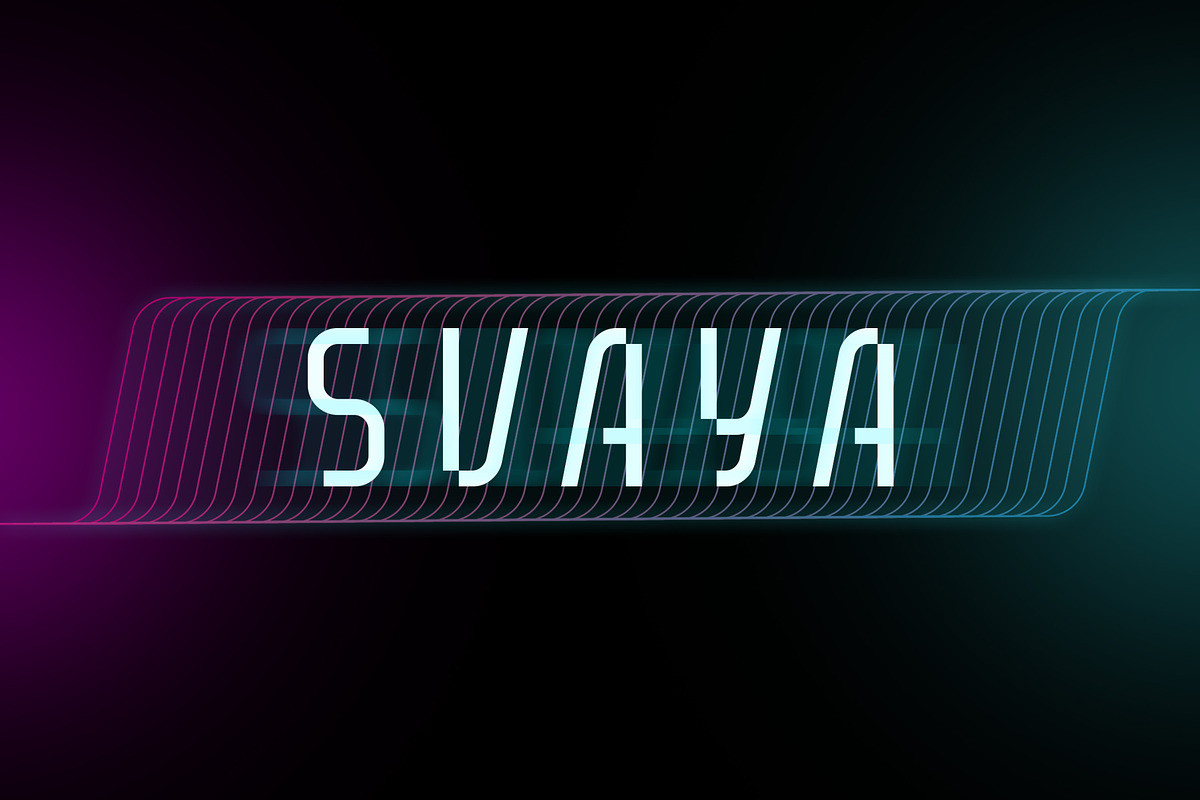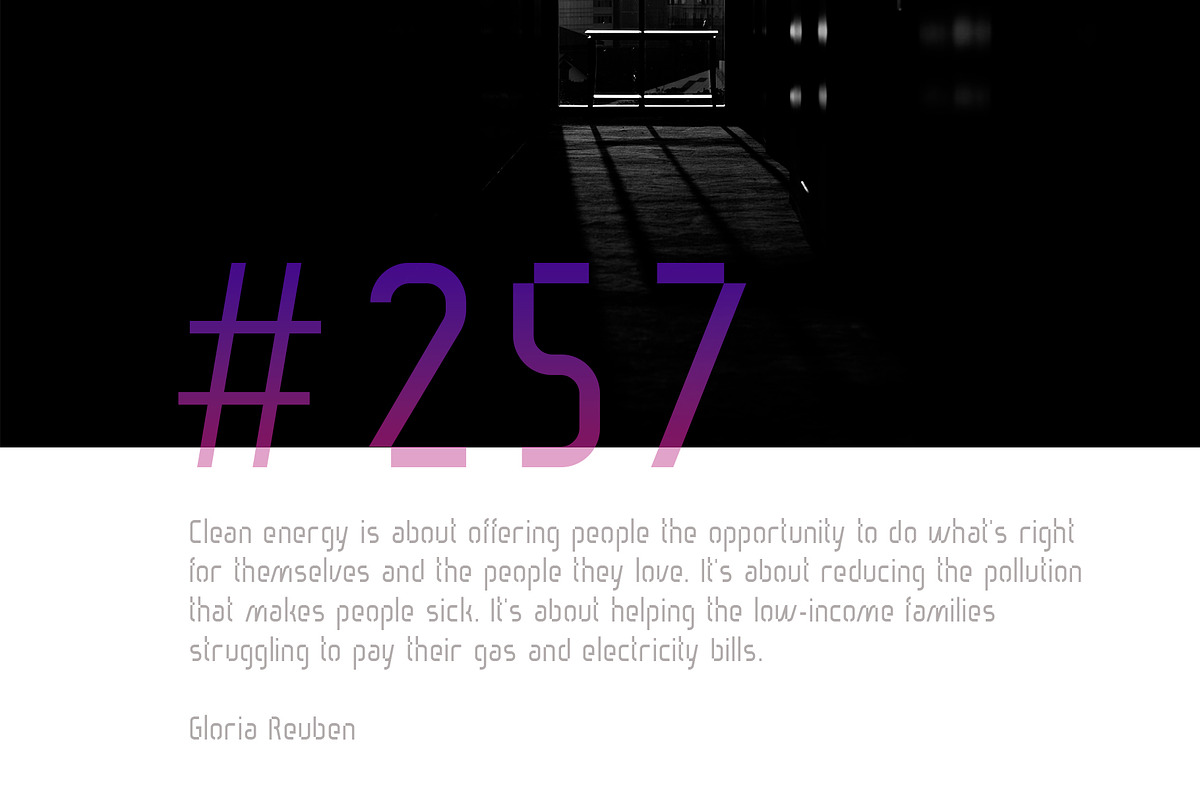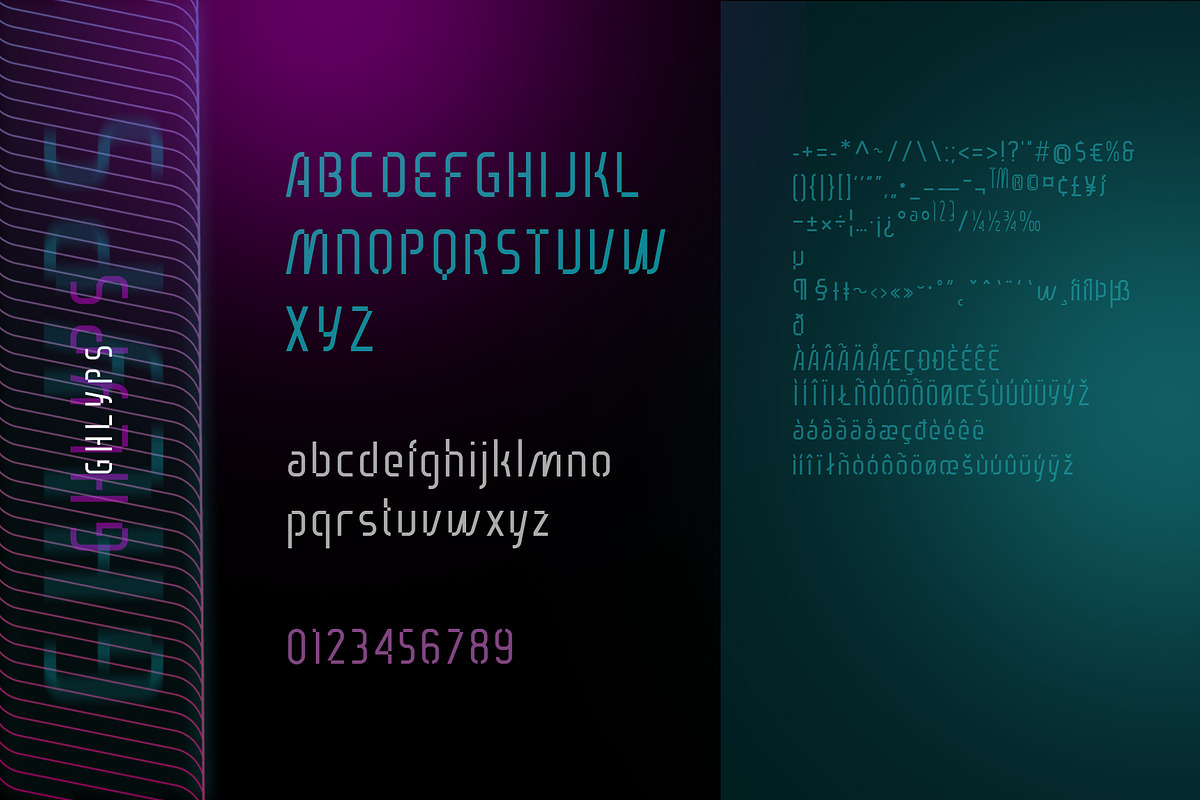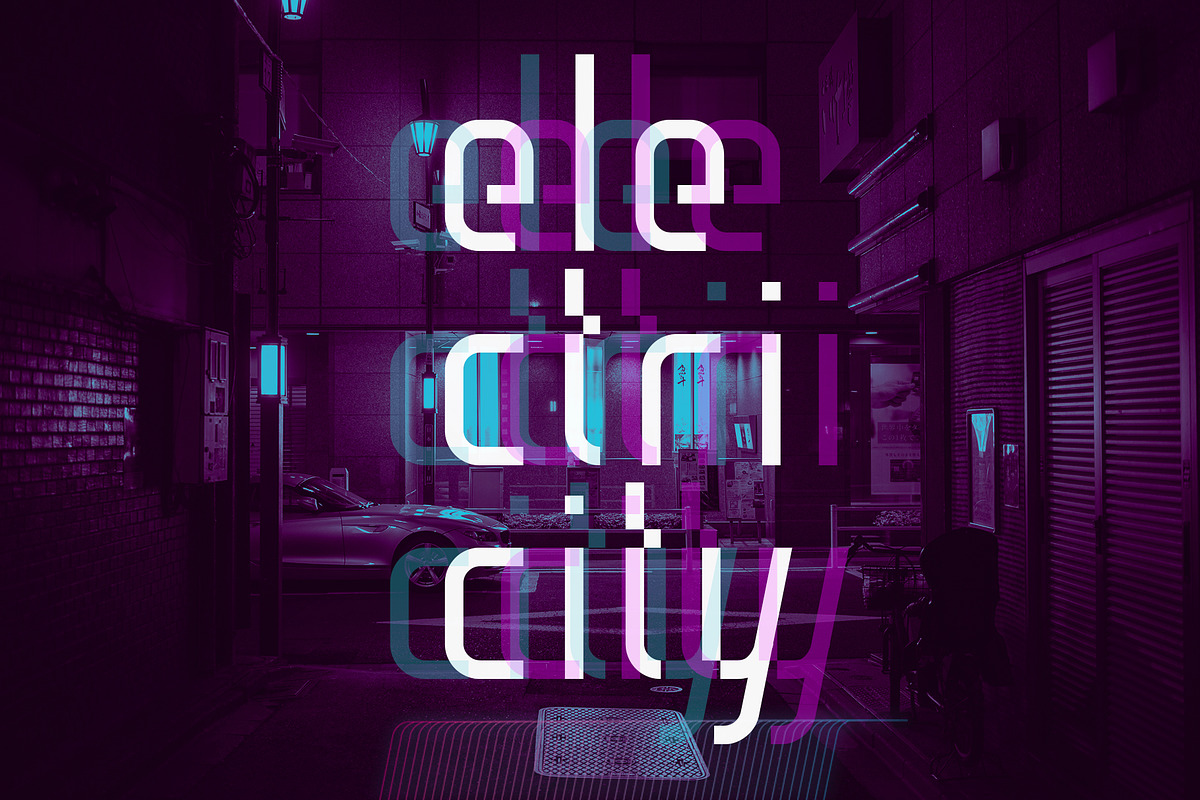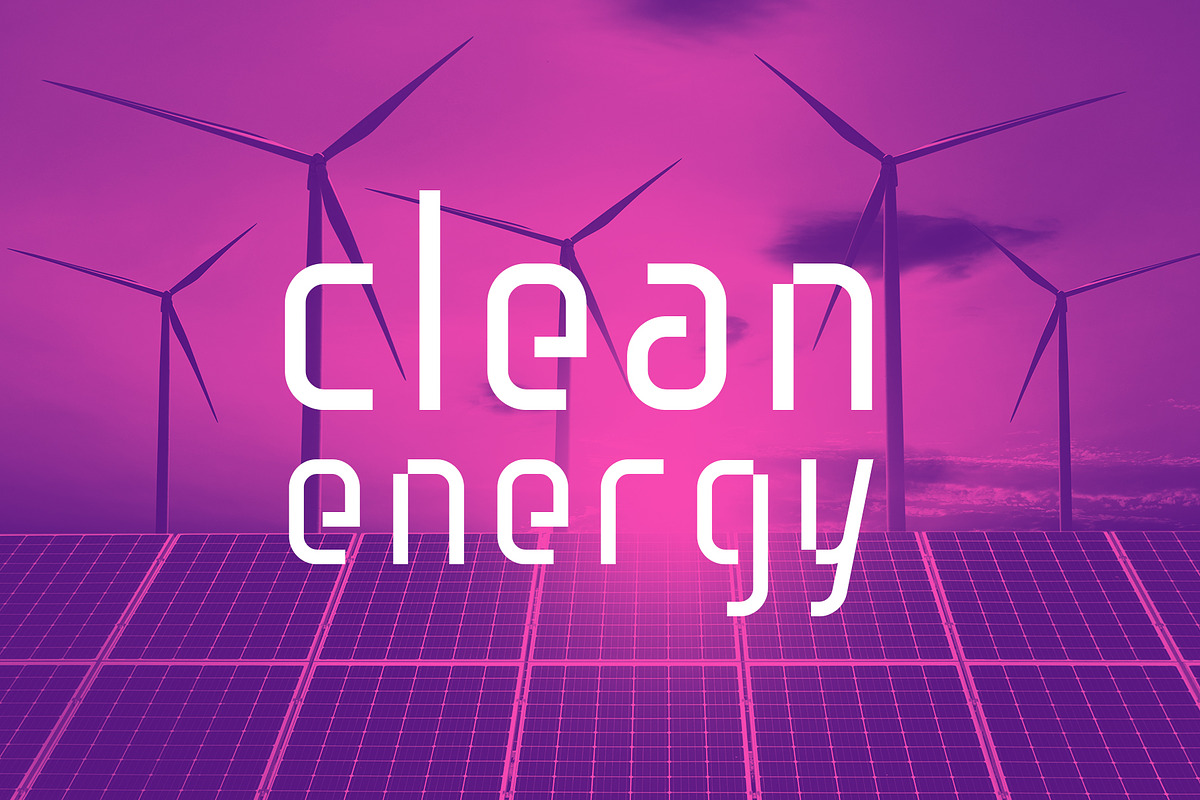
Svaya
Very simple, bold, and modern in design, this typeface is suitable for everyday use, personal or commercial work. It would be better for display, headline or poster.